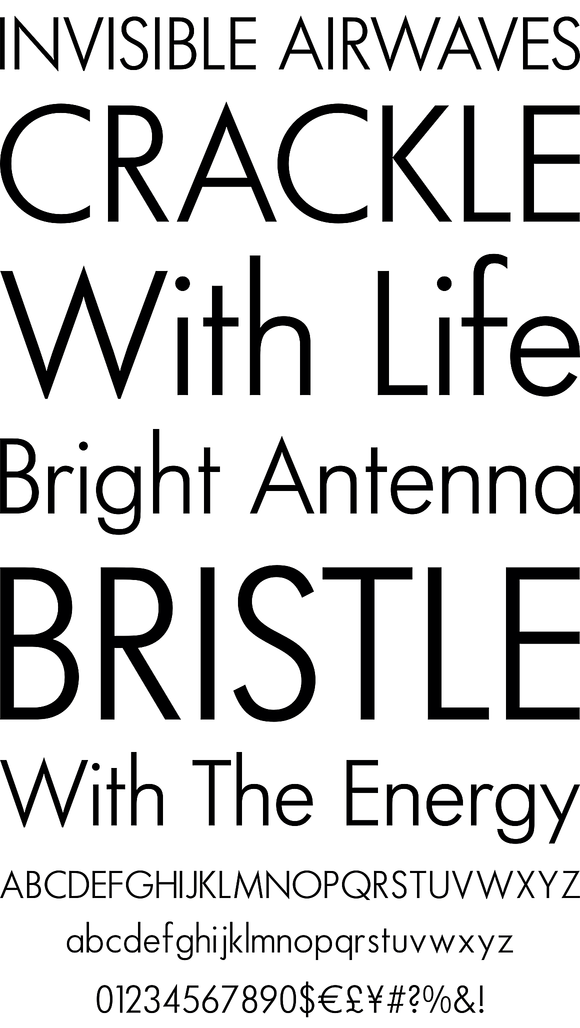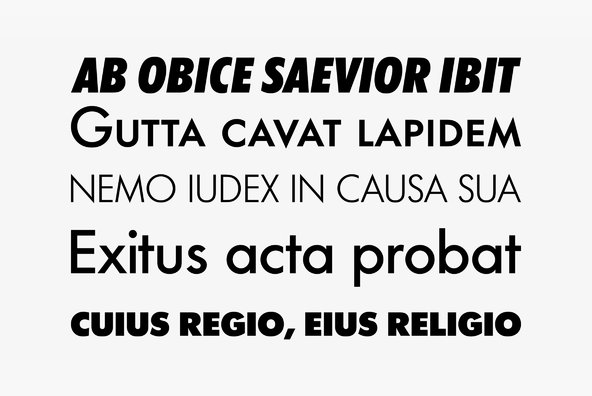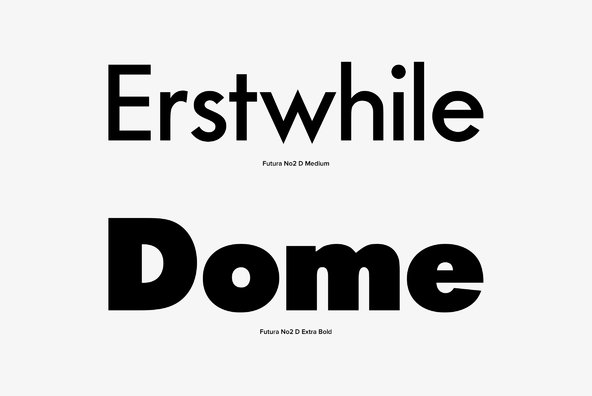
Futura No 2
Futura No. 2 is Letraset's version of Futura from the 1980s, digitized by and at URW in opentype format.
Futura. The very name brings to mind jet-age splendor of the highest order, and indeed the text on the commemorative plaque left behind on the Moon by the Apollo 11 astronauts in July, 1969 is set in Futura. There is no other font that can do what it does with the same impact. You might say Futura is to Helvetica as driving a Porsche is to driving a Toyota--they both get you there, but the former does it with so much more fun.
Futura was designed by type design luminary Paul Renner, and is used extensively in advertising and logo design, by IKEA, Volkswagen, Shell, HP and many more. Used in any headline or body situation, Futura can bring you all the magic, promise and forward-looking sans power in an iconic and powerful way, as director Stanley Kubrick knew--it was his favorite font.